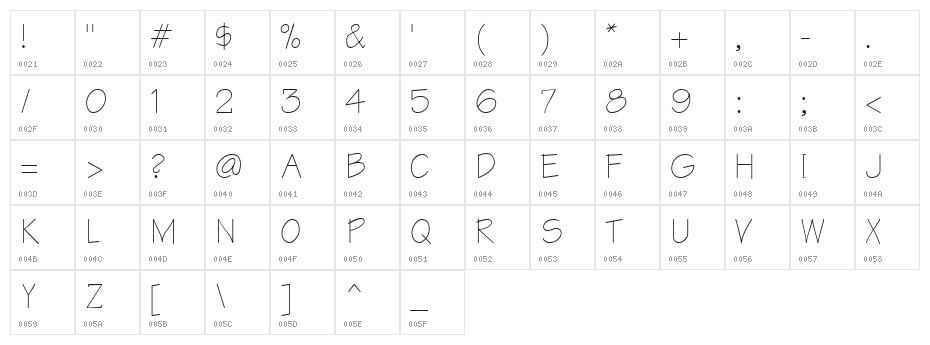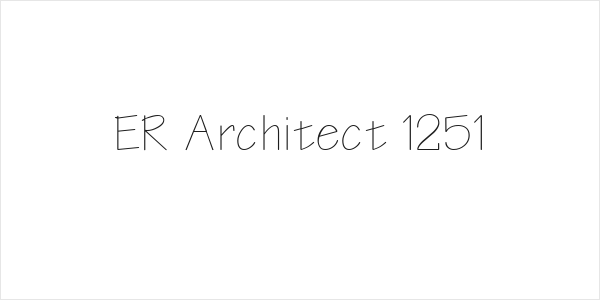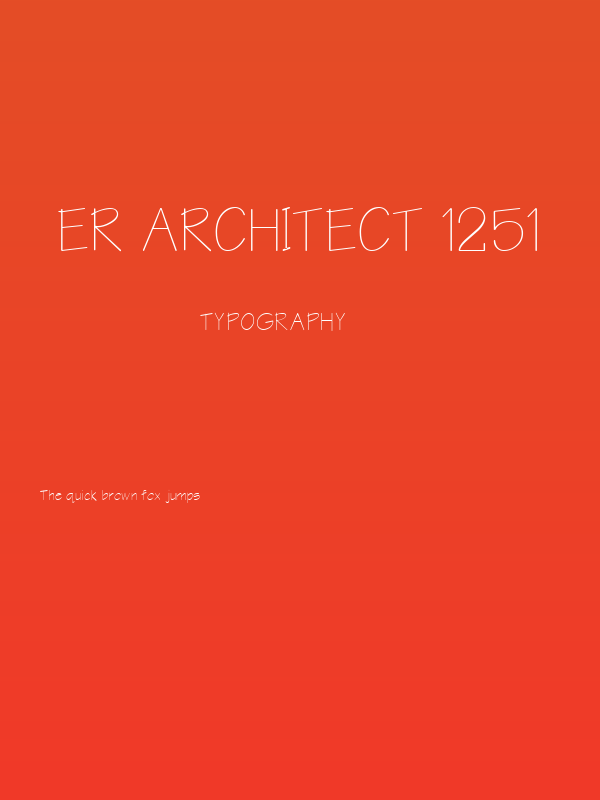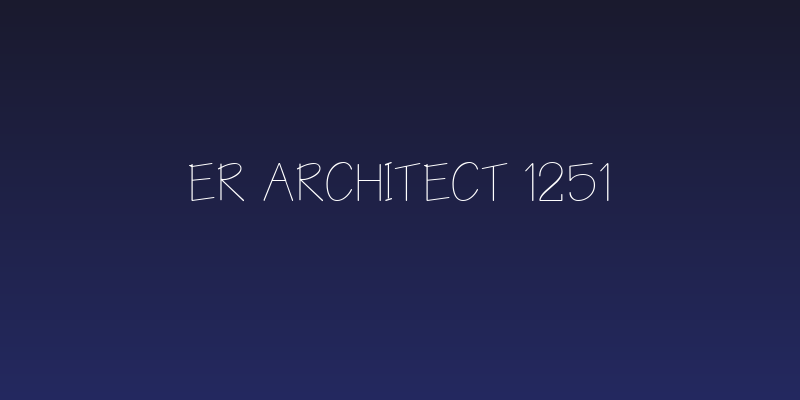
ER Architect 1251 Font
ER Architect 1251 Description
This font features a clean, minimalist design with a hand-drawn aesthetic. The characters are thin and slightly irregular, giving them a casual yet sophisticated appearance. The uppercase letters are tall and narrow, while the lowercase letters maintain a consistent height, creating a harmonious balance. The numerals and special characters follow the same style, ensuring uniformity across all text. The overall look is reminiscent of architectural sketches, making it ideal for projects that require a modern, artistic touch.
| Proposed Projects | Ideal for architectural designs, creative portfolios, modern branding, and artistic projects. |